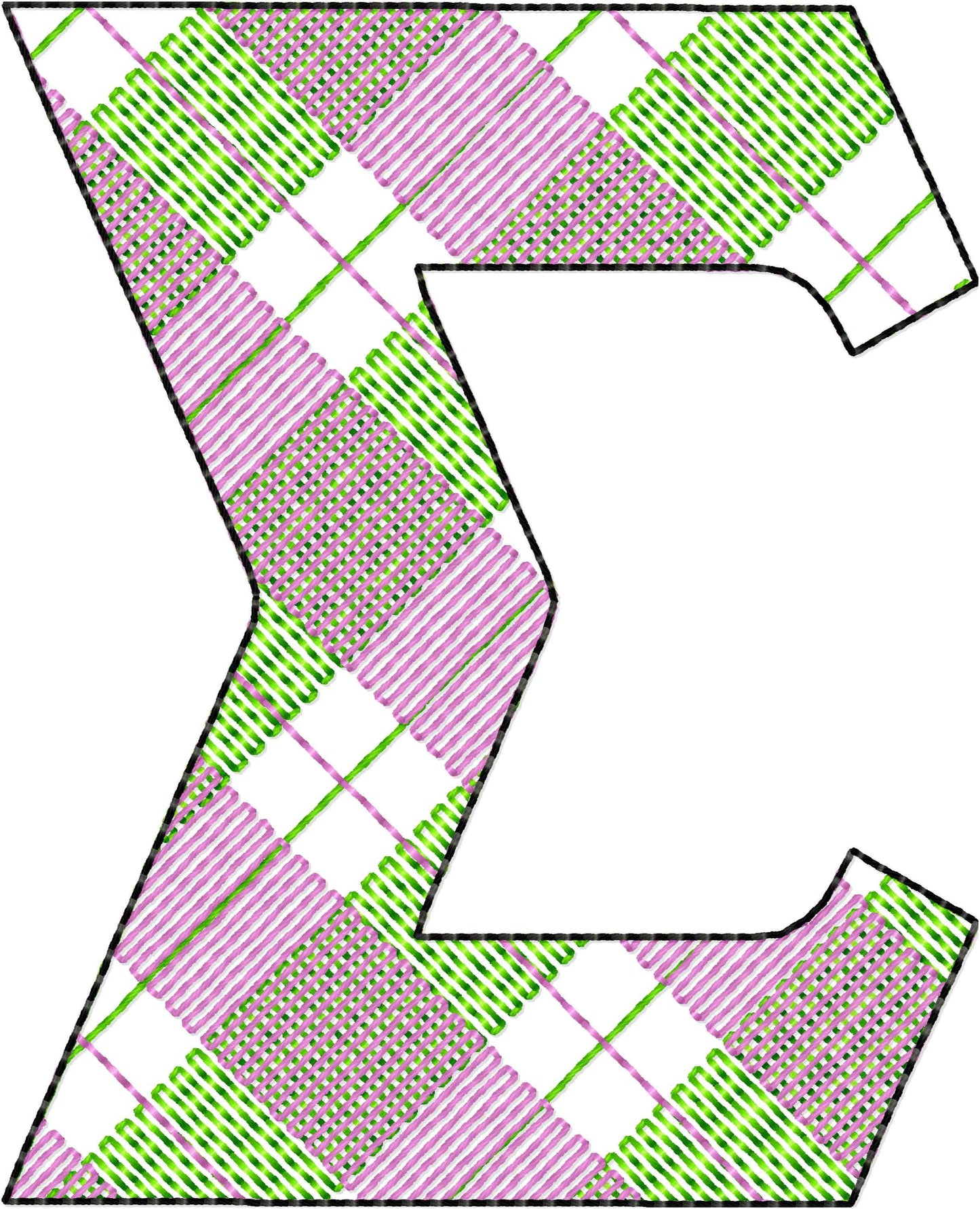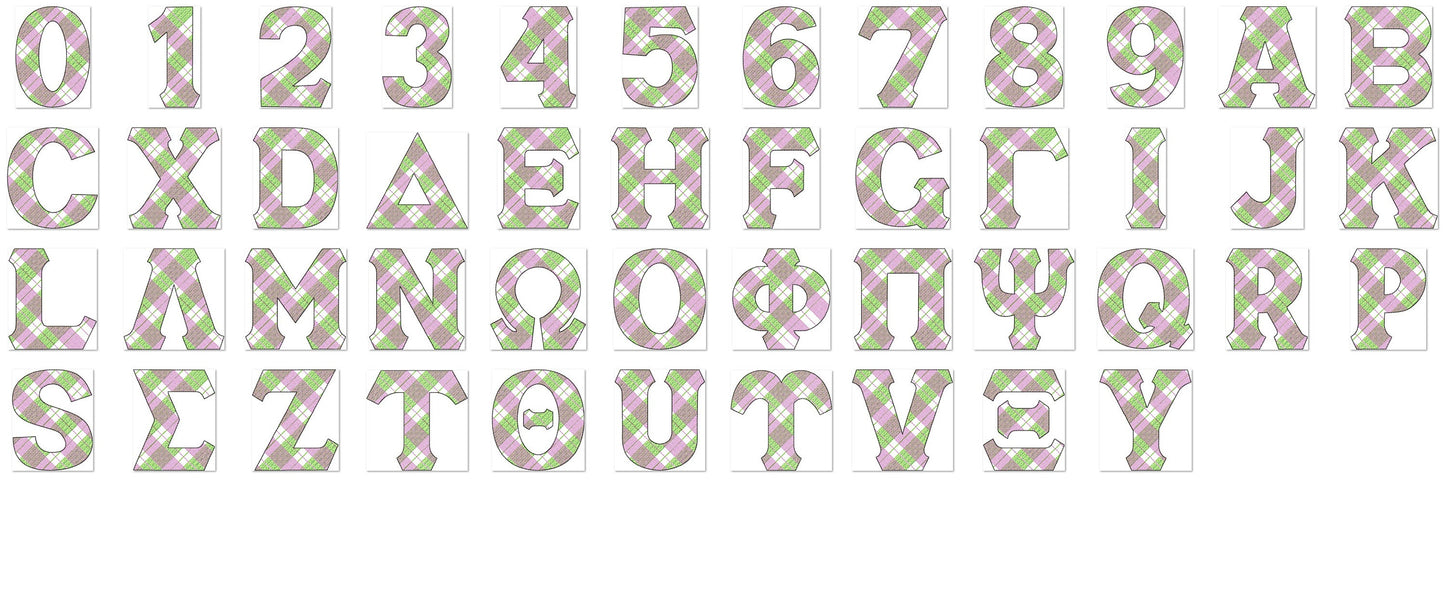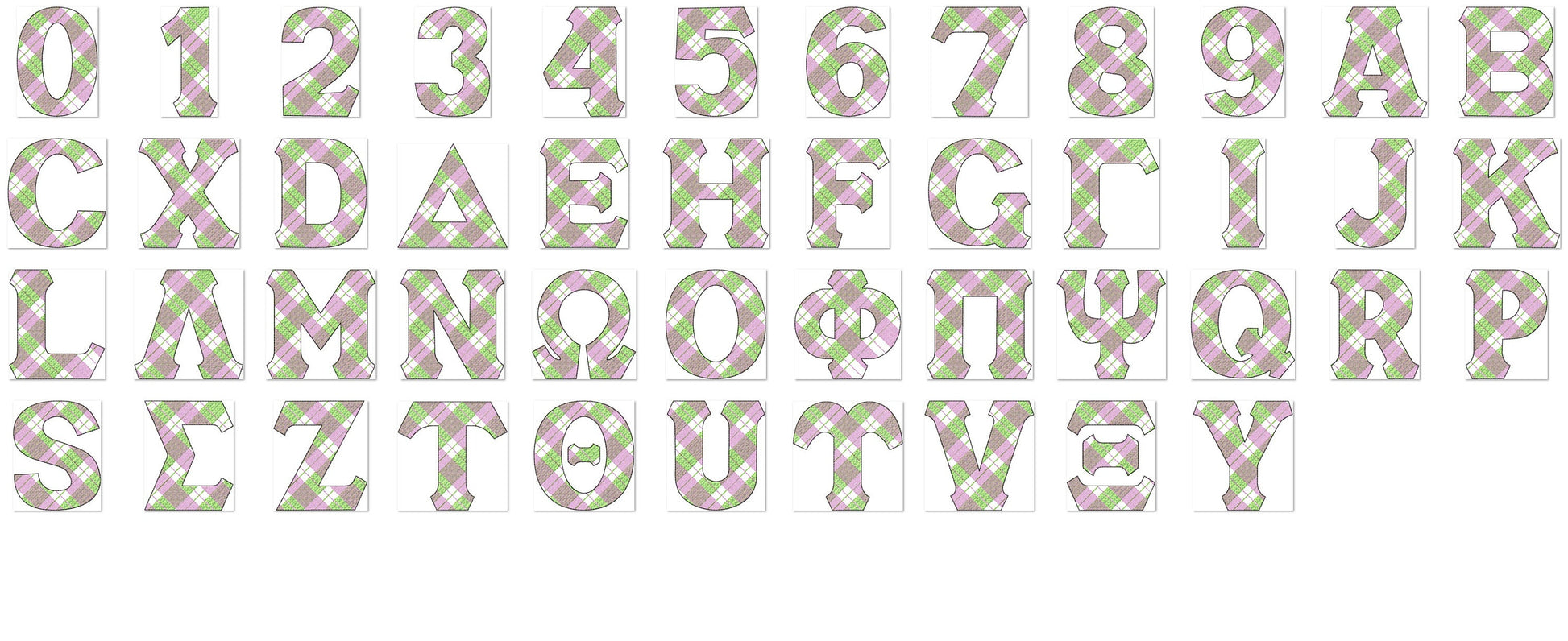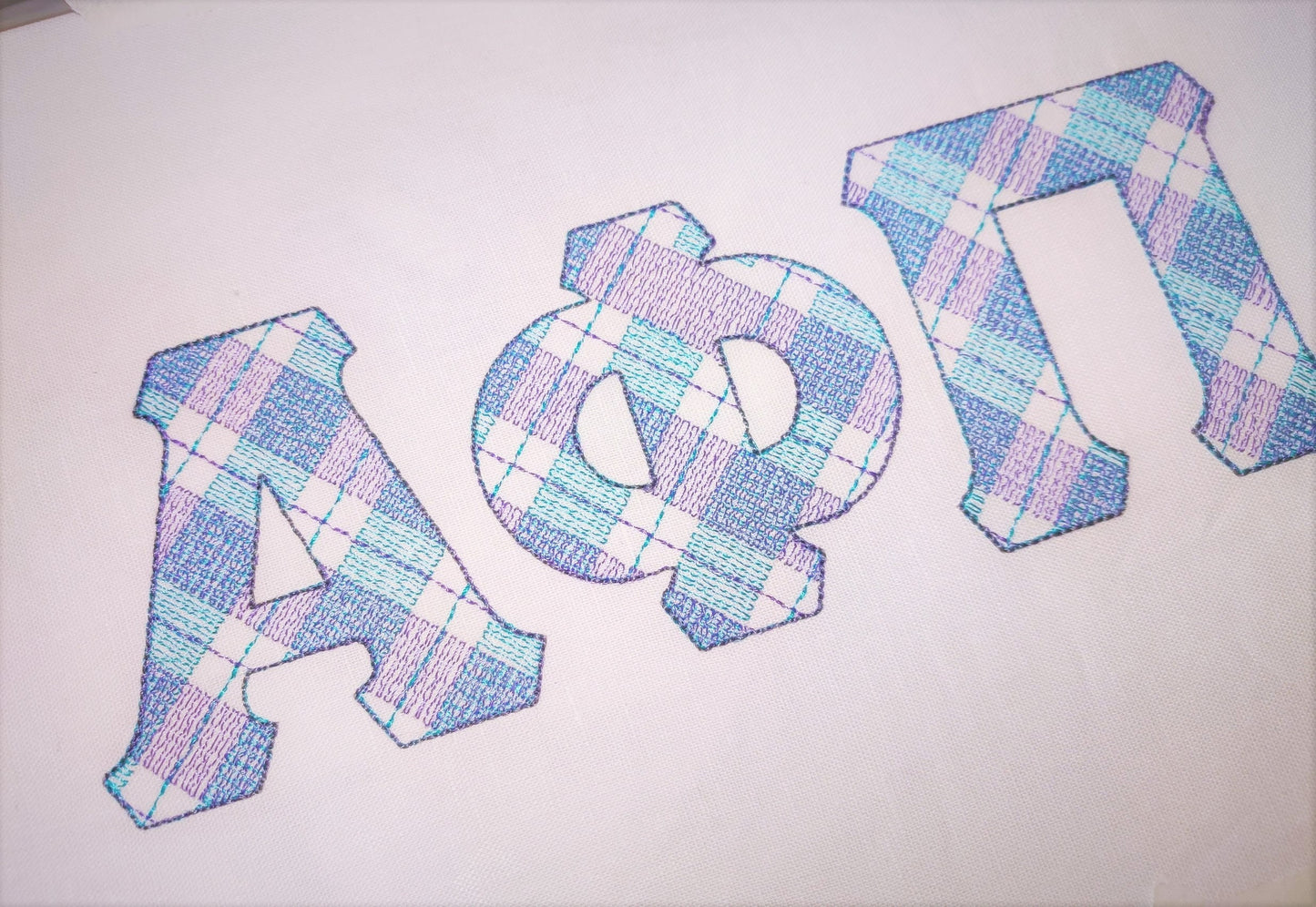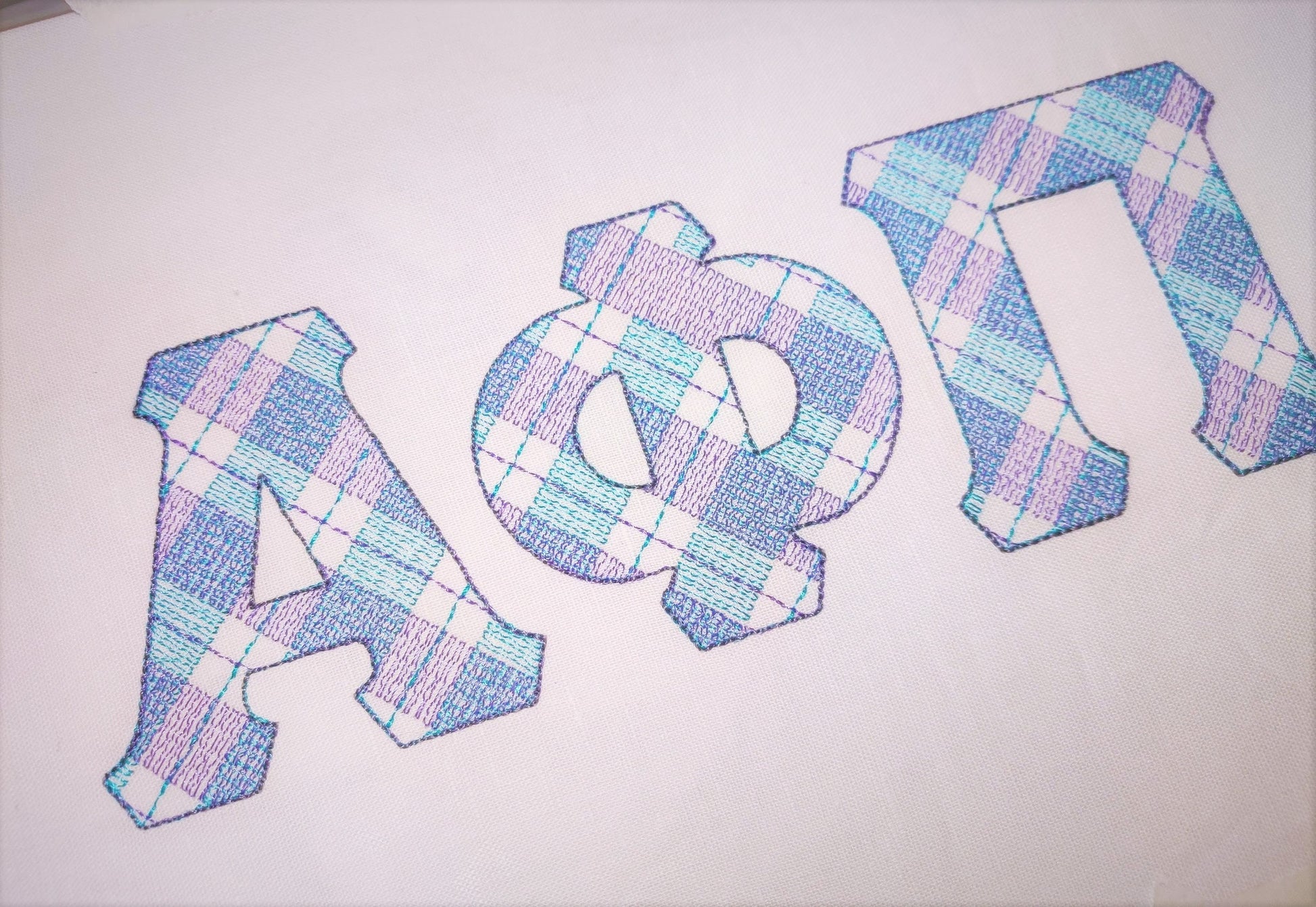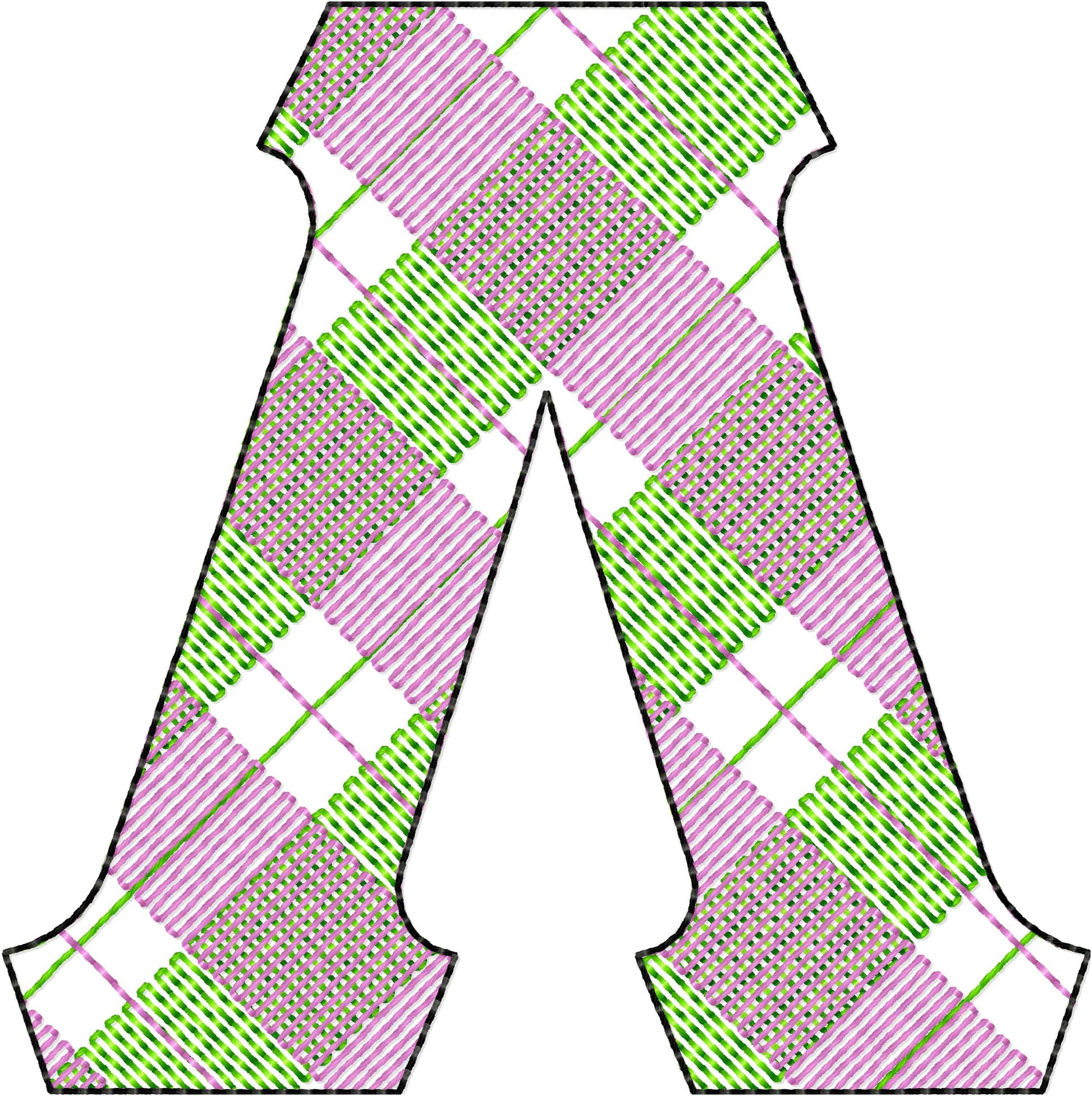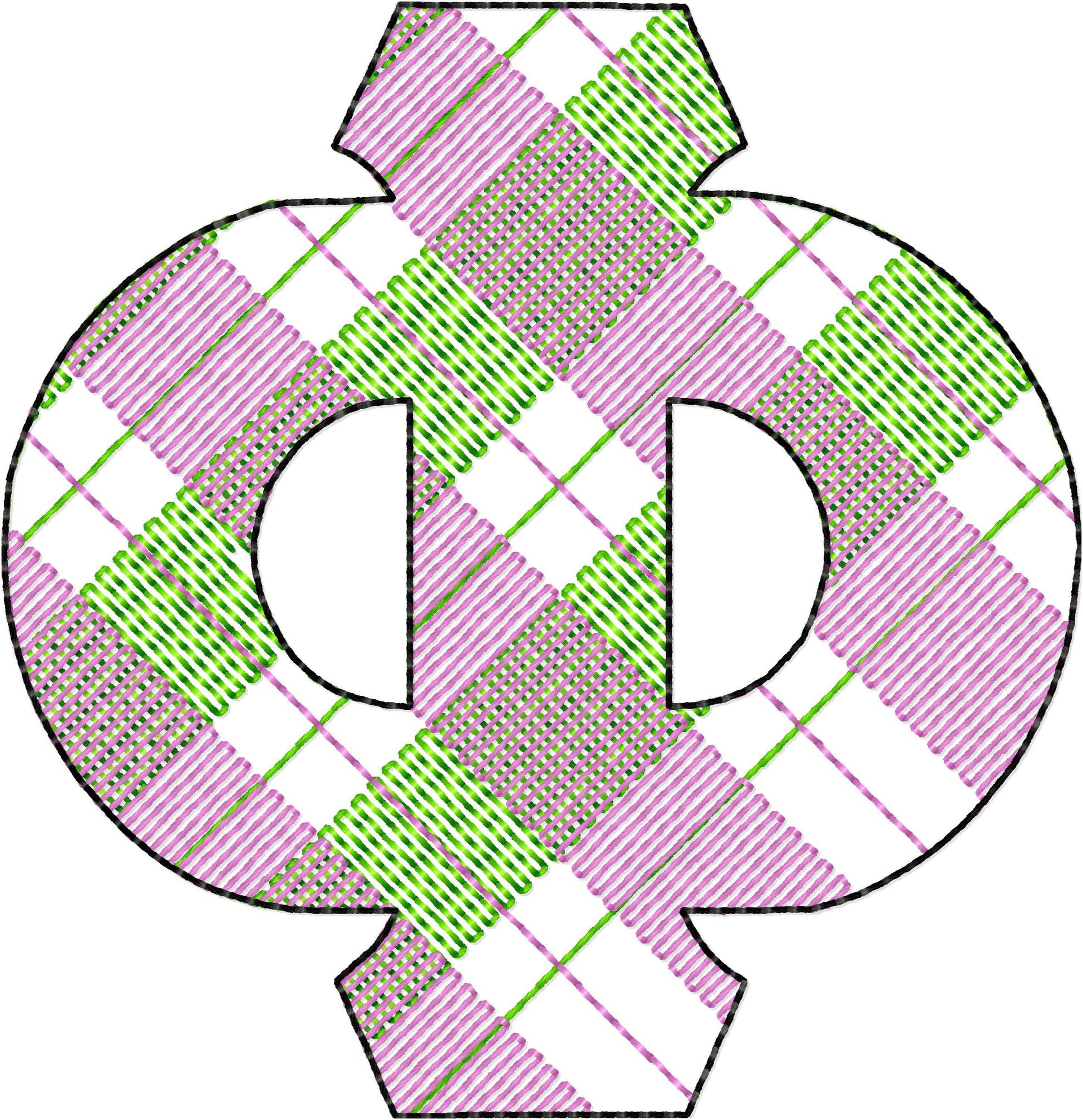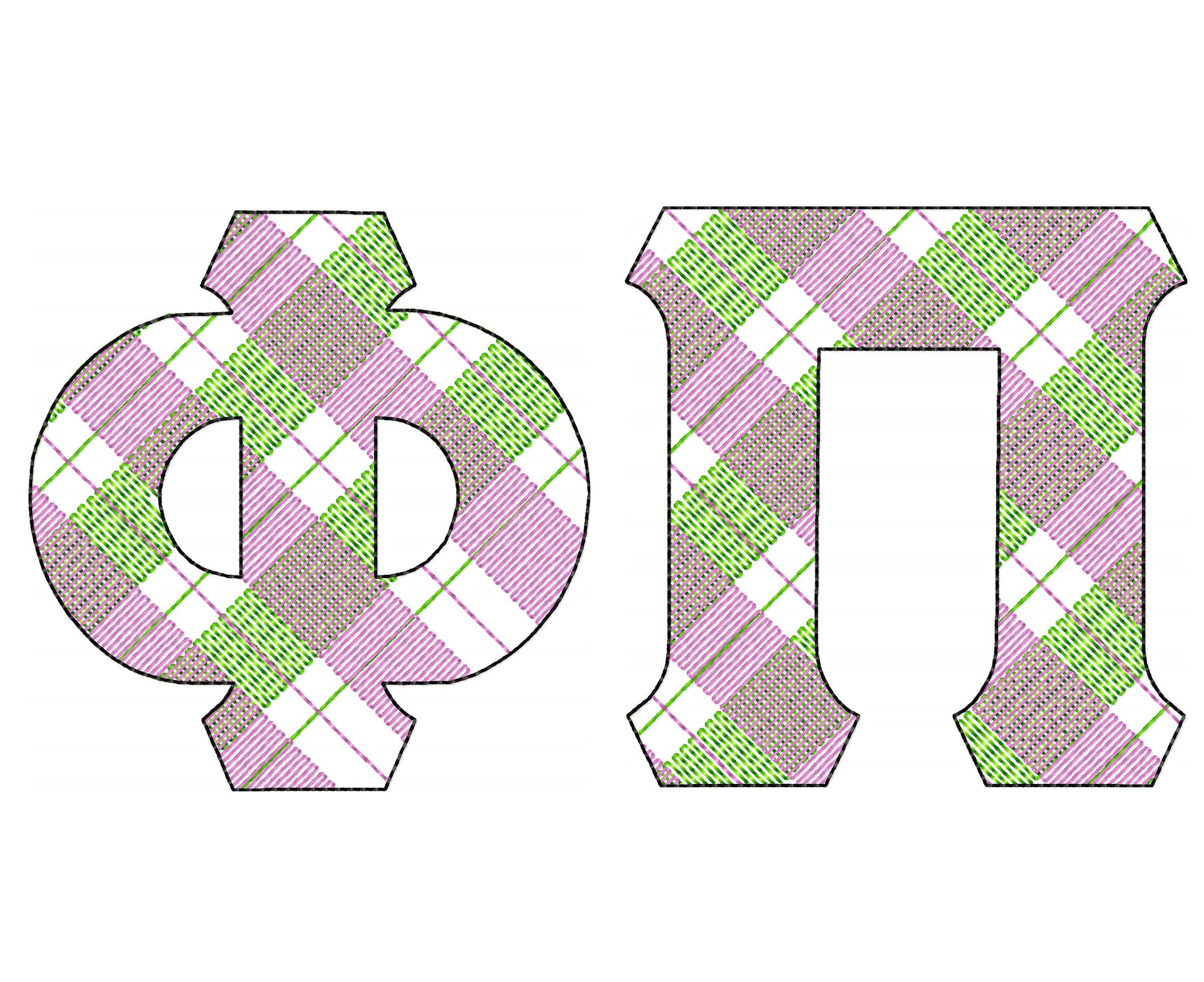
Gingham Plaid Patterned Sororities Greek Font
All 24 Greek letters, the English capitals and numbers 0 to 9, in nine sizes: 2, 2.5, 3, 3.5, 4, 4.5, 5, 6 and 7 inches. Letters that look alike in both alphabets are shared. The letters are fill stitched, and under the gingham checks the fabric shows through.
- Gingham check Greek and English font, 2 colors
- 24 Greek letters, English capitals, numbers 0 to 9
- 9 sizes, 2 to 7 in